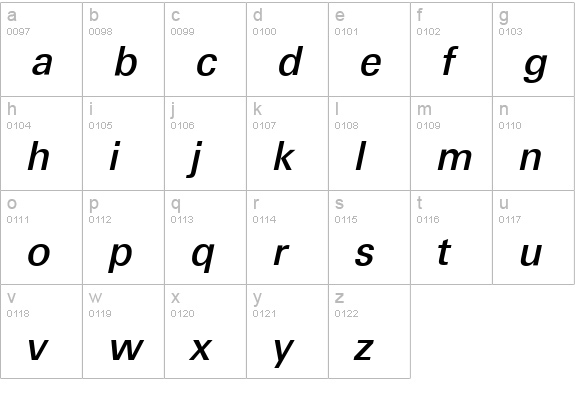
UltimateSerial-Medium-Italic Font Details
UltimateSerial-Medium-Italic is a balanced, medium-weight, italic variant in the UltimateSerial typeface family \xE2\x80\x94 well suited to sub-headlines, navigation, and balanced editorial work.
UltimateSerial-Medium-Italic font is a sleek and sophisticated typeface that exudes elegance and modernity. Its medium weight and italic style add a touch of flair and sophistication to any design project. Perfect for headlines, branding, and editorial use, this font is a versatile choice for a wide range of applications. The best part? UltimateSerial-Medium-Italic font is available for free download at FontsMarket.com. Whether you're a professional designer looking for a new addition to your font library or a casual user in need of a stylish typeface for personal projects, this font is a fantastic choice. Don't miss out on the opportunity to enhance your designs with the exquisite charm of UltimateSerial-Medium-Italic font - download it for free today!